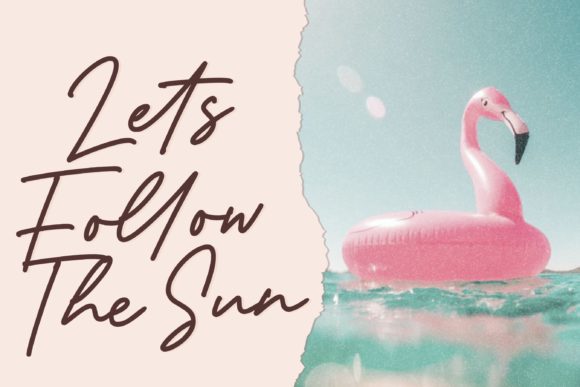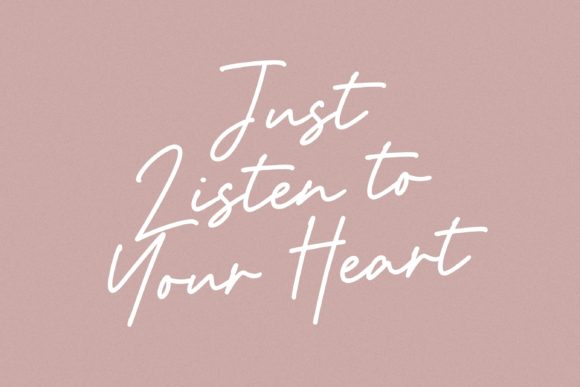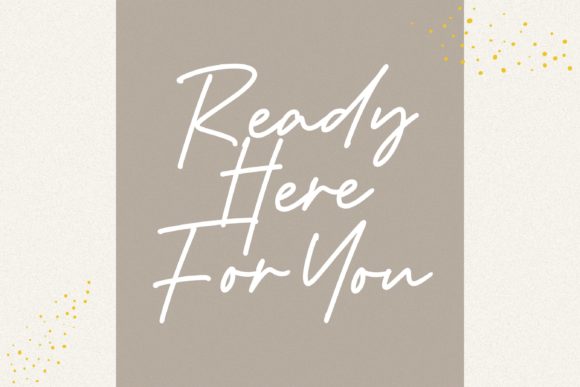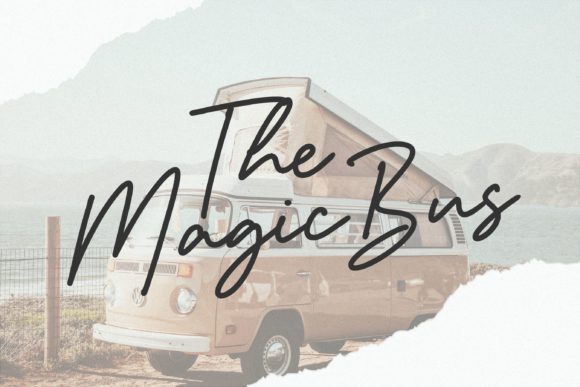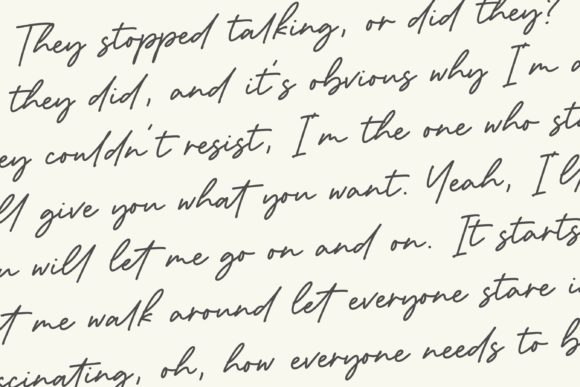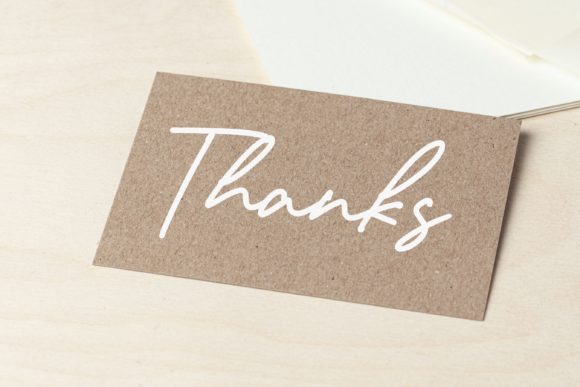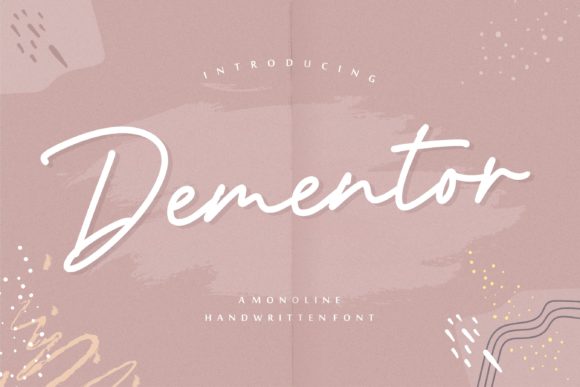
Dementor Font: The Elegant Handwritten Font for Creative Projects
Are you looking for a font that exudes elegance and sophistication? Look no further than the Dementor Font! This beautiful, flowing handwritten font is created with the help of a brush pen, giving it a unique and organic feel. In this article, we’ll dive into the features and benefits of the Dementor Font, and explore how you can use it to elevate your creative projects.
What is Dementor Font?
Dementor is a carefully crafted handwritten font that boasts an incredibly versatile style. Its elegant and flowing lines make it perfect for a wide range of applications, from wedding invitations and stationary art to social media posts and more. The font’s unique charm is thanks to its creation with a brush pen, which gives it a personal and human touch.
Key Features of Dementor Font
- Handwritten with a brush pen: The Dementor Font is created with a brush pen, giving it a distinctive and organic feel.
- Elegant and flowing lines: The font’s elegant lines make it perfect for projects that require a touch of sophistication.
- Incredibly versatile: The Dementor Font can be used for a wide range of applications, from wedding invitations to social media posts.
- Easy to read: Despite its elegant and flowing lines, the Dementor Font is easy to read, making it perfect for body text and headlines.
Uses of Dementor Font
The Dementor Font is perfect for a wide range of creative projects, including:
- Wedding invitations: The font’s elegant and flowing lines make it perfect for wedding invitations, adding a touch of sophistication and romance to your special day.
- Stationary art: Use the Dementor Font to create beautiful stationary art, including greeting cards, thank you cards, and more.
- Social media posts: The font’s unique charm makes it perfect for social media posts, adding a touch of personality to your online presence.
- Branding and packaging: The Dementor Font can be used for branding and packaging, adding a touch of elegance and sophistication to your products.
Tips for Using Dementor Font
Here are some tips for getting the most out of the Dementor Font:
- Use it for headlines and titles: The Dementor Font is perfect for headlines and titles, adding a touch of elegance and sophistication to your text.
- Experiment with different colors: The font’s unique charm is enhanced by different colors, so don’t be afraid to experiment and find the perfect hue for your project.
- Pair it with other fonts: The Dementor Font can be paired with other fonts to create a unique and interesting contrast.
In conclusion, the Dementor Font is a beautiful and elegant handwritten font that is perfect for creative projects. Its unique charm and versatility make it a great addition to any designer’s toolkit. Whether you’re creating wedding invitations, stationary art, or social media posts, the Dementor Font is sure to impress. So why not give it a try and see the difference it can make in your designs?